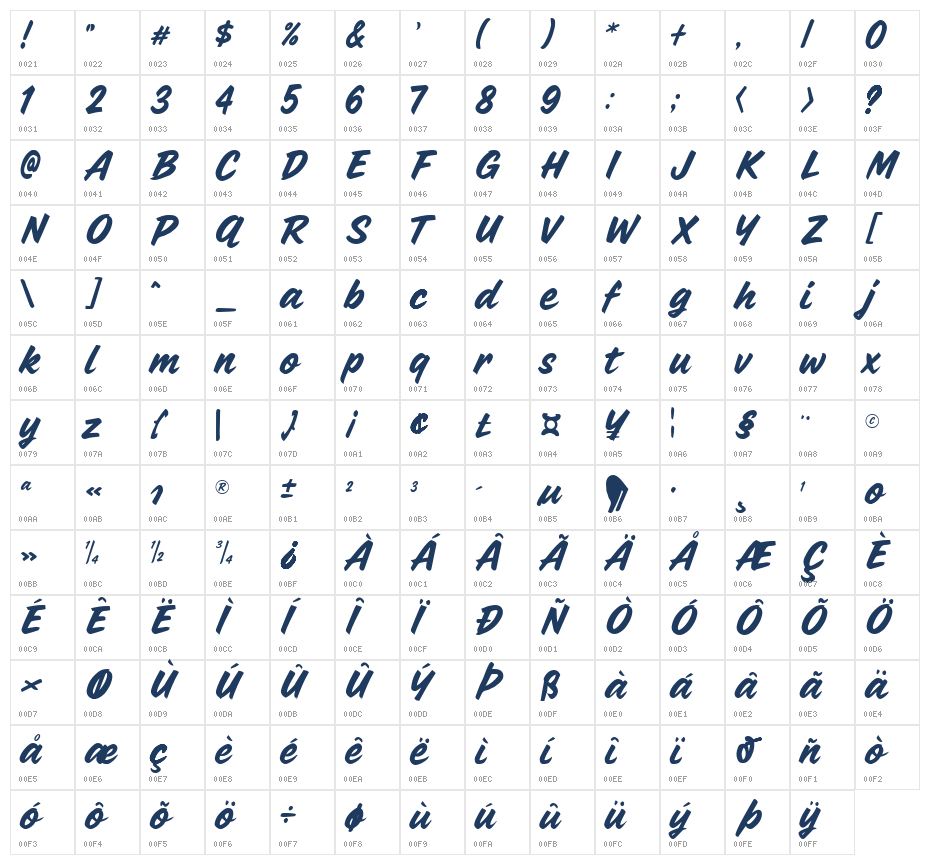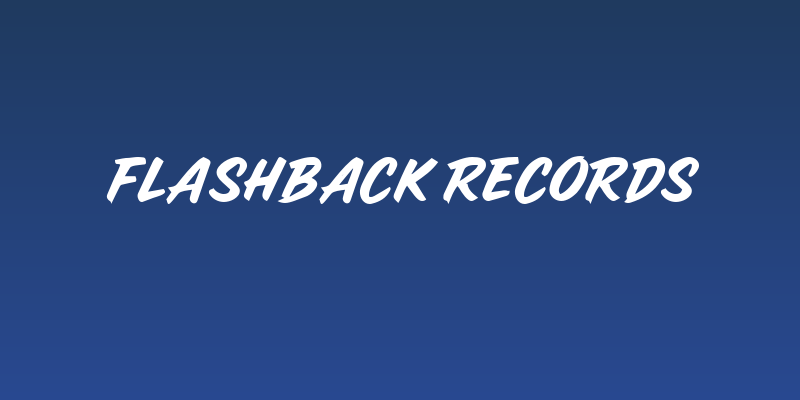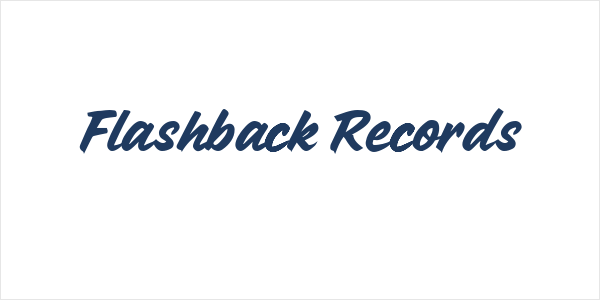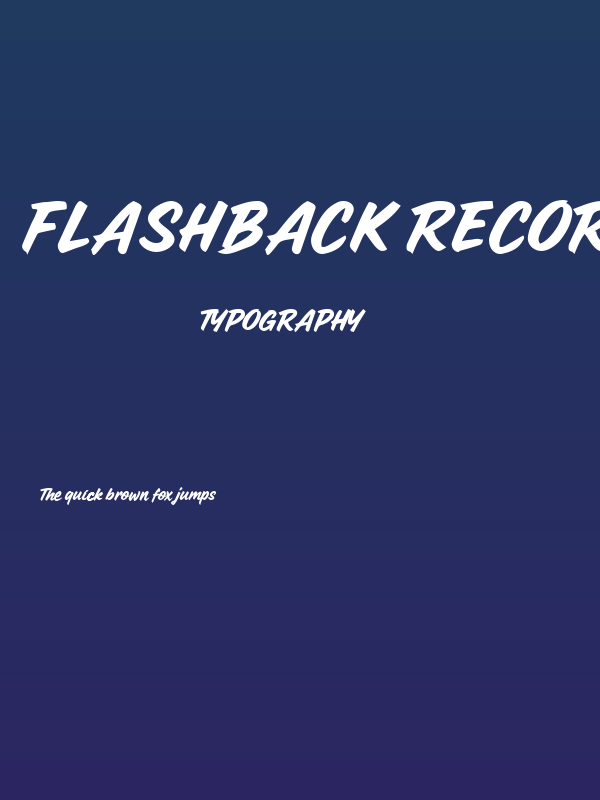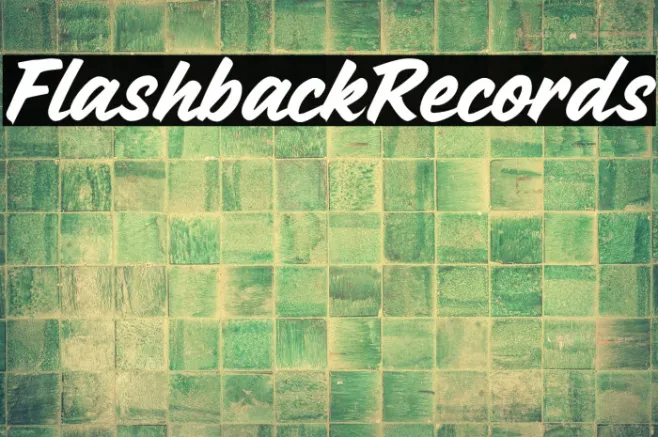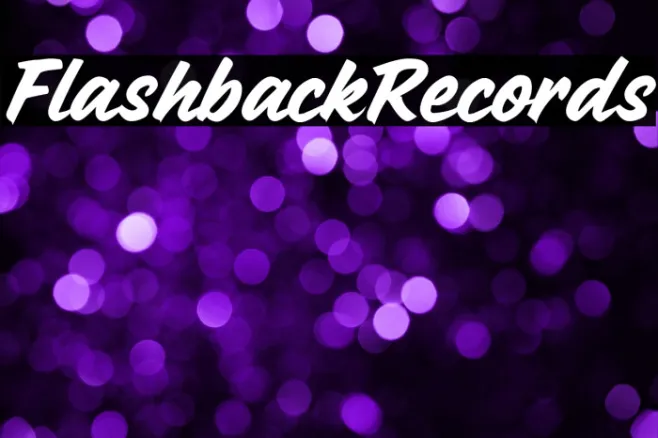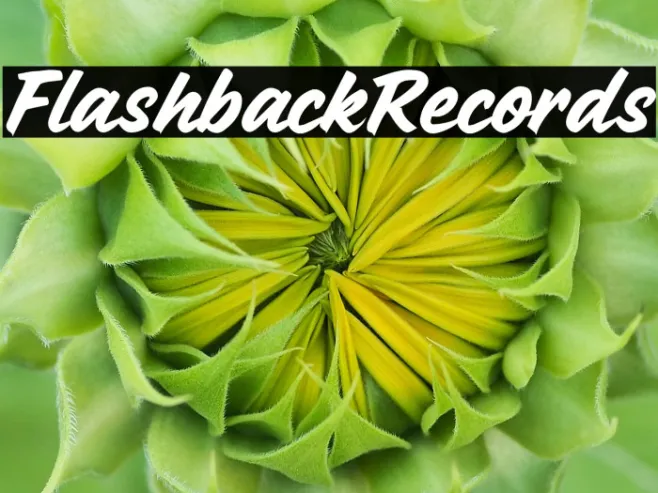
Flashback Records Font
Flashback Records Description
A bold, cursive script font with a handwritten style, featuring smooth, flowing strokes and a slightly slanted appearance.
| Overall Style | Casual, Friendly, Handwritten |
| Use Case | Headlines, Logos, Invitations, Branding |